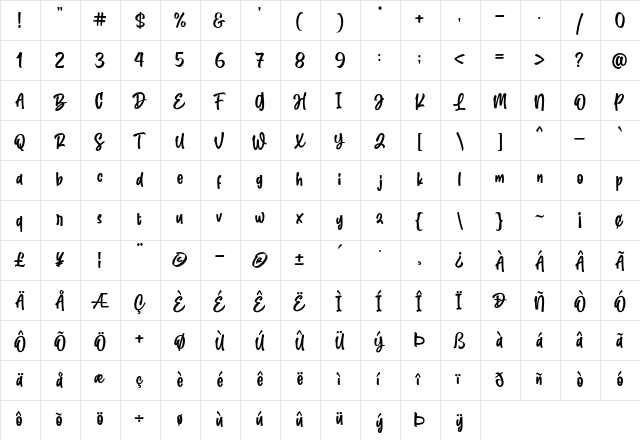
Cute Gorilla Regular
Design Context for Cute Gorilla Typeface
Cute Gorilla is a composed and adaptable typeface that performs quietly and consistently across a wide range of design contexts.